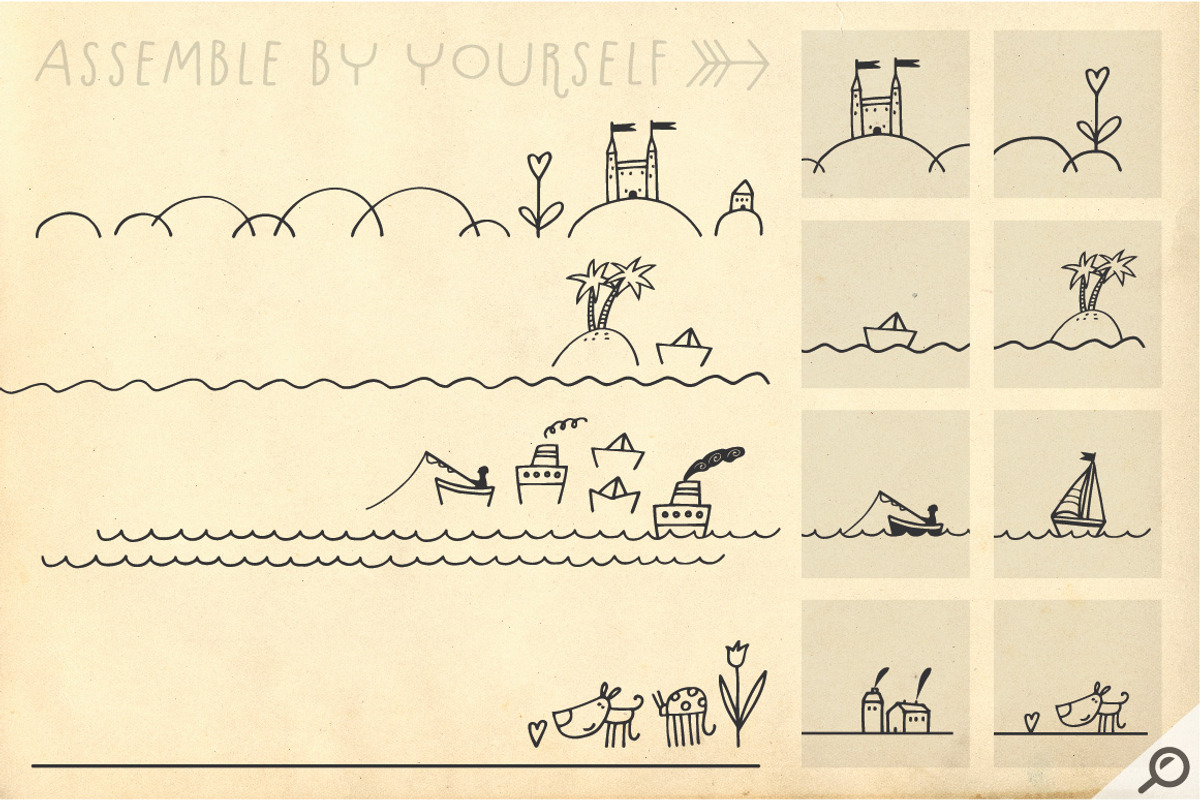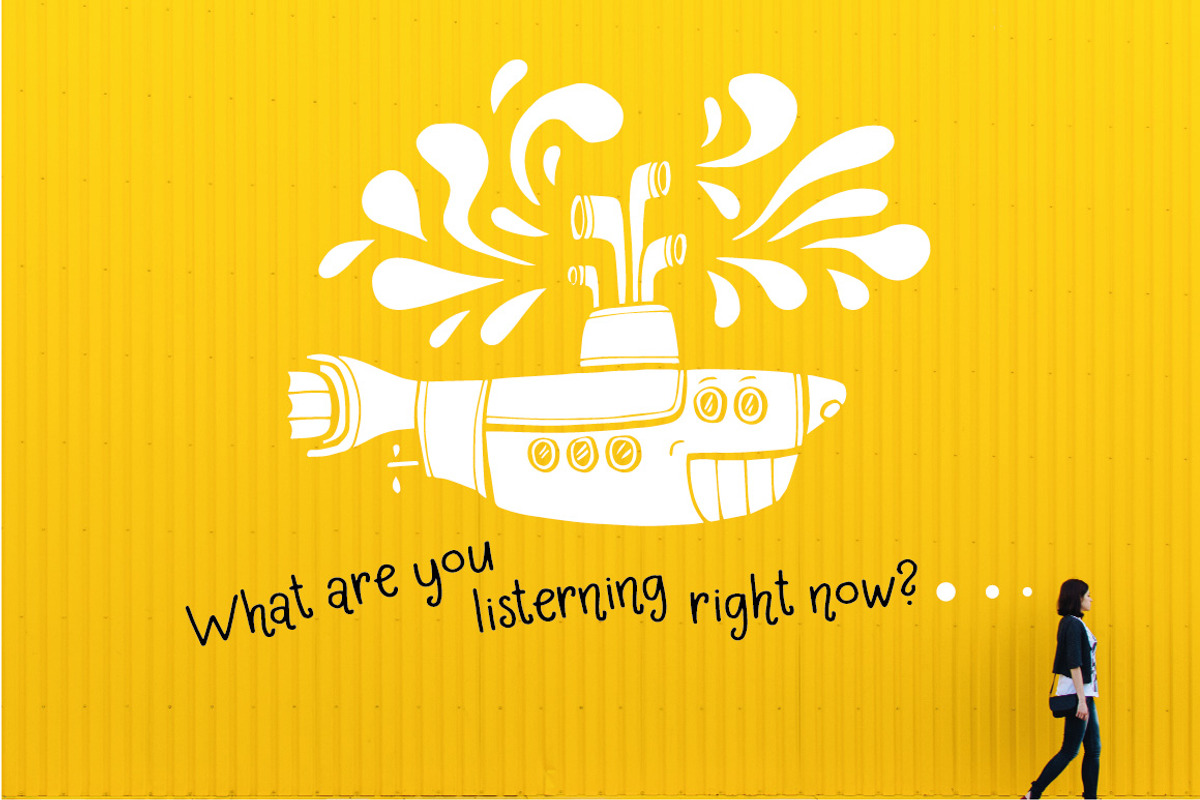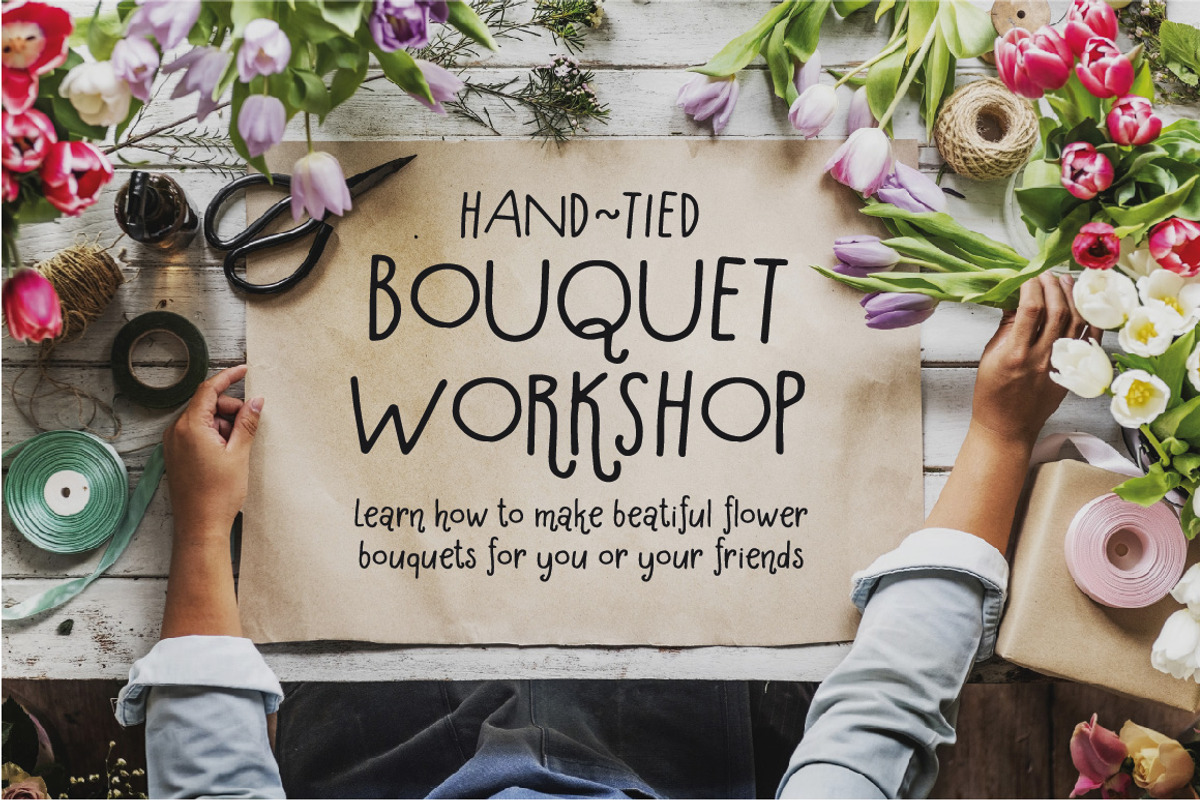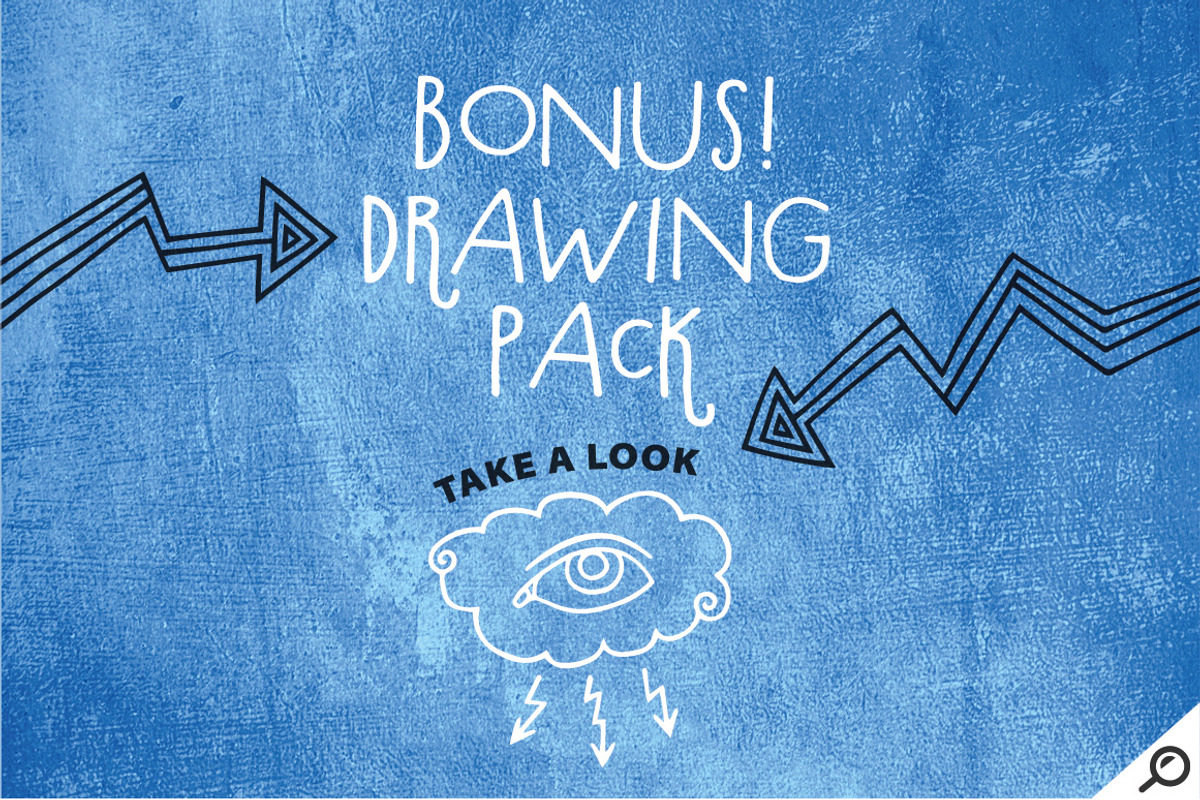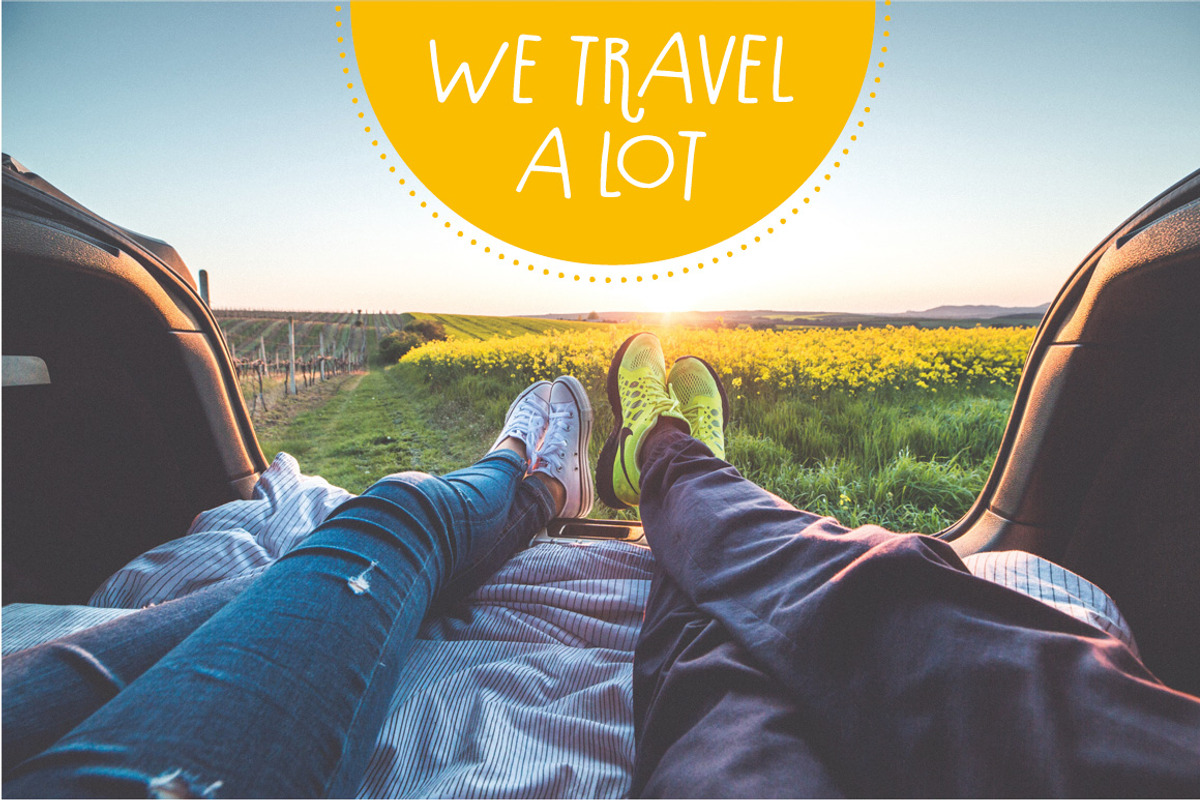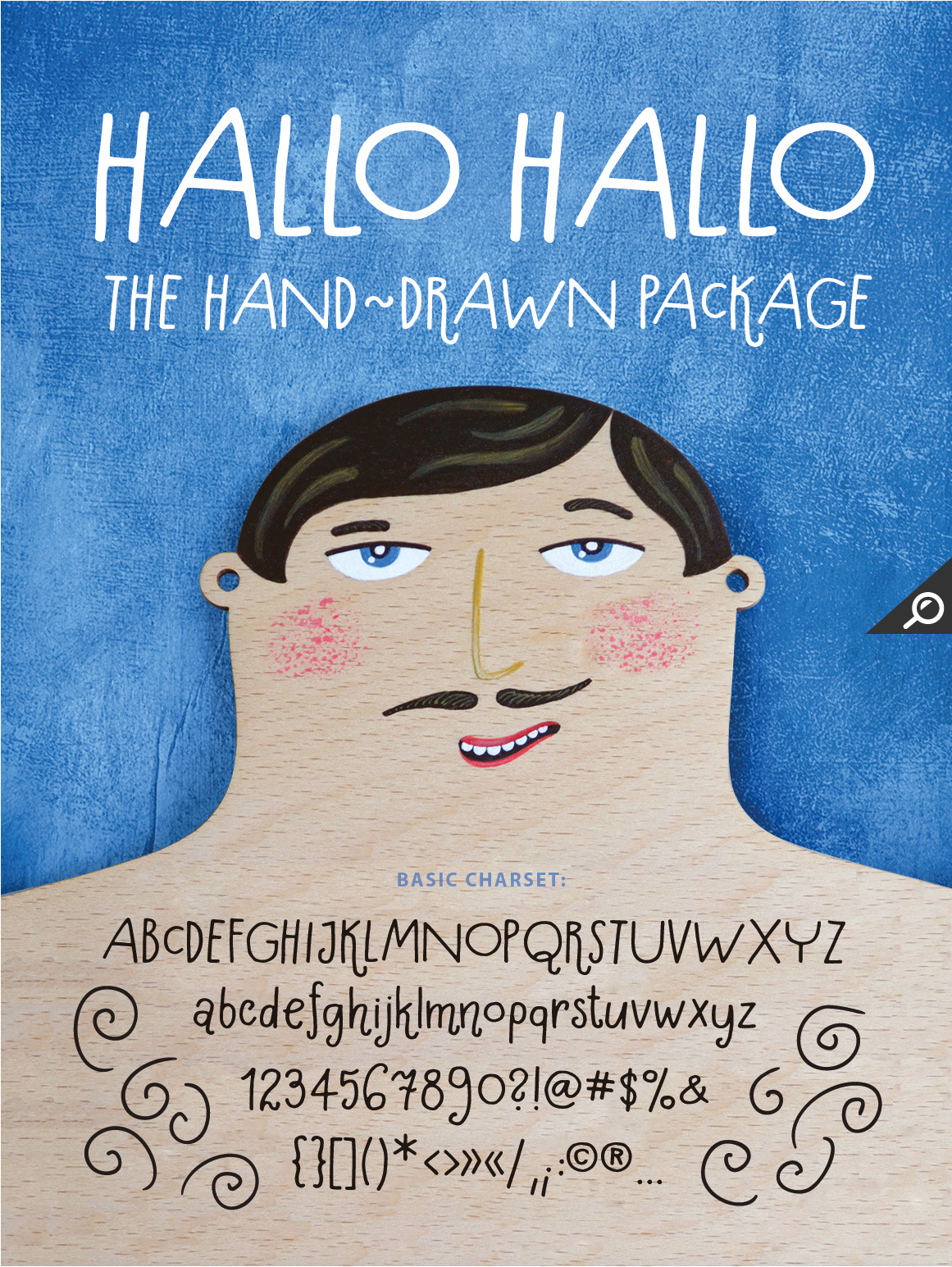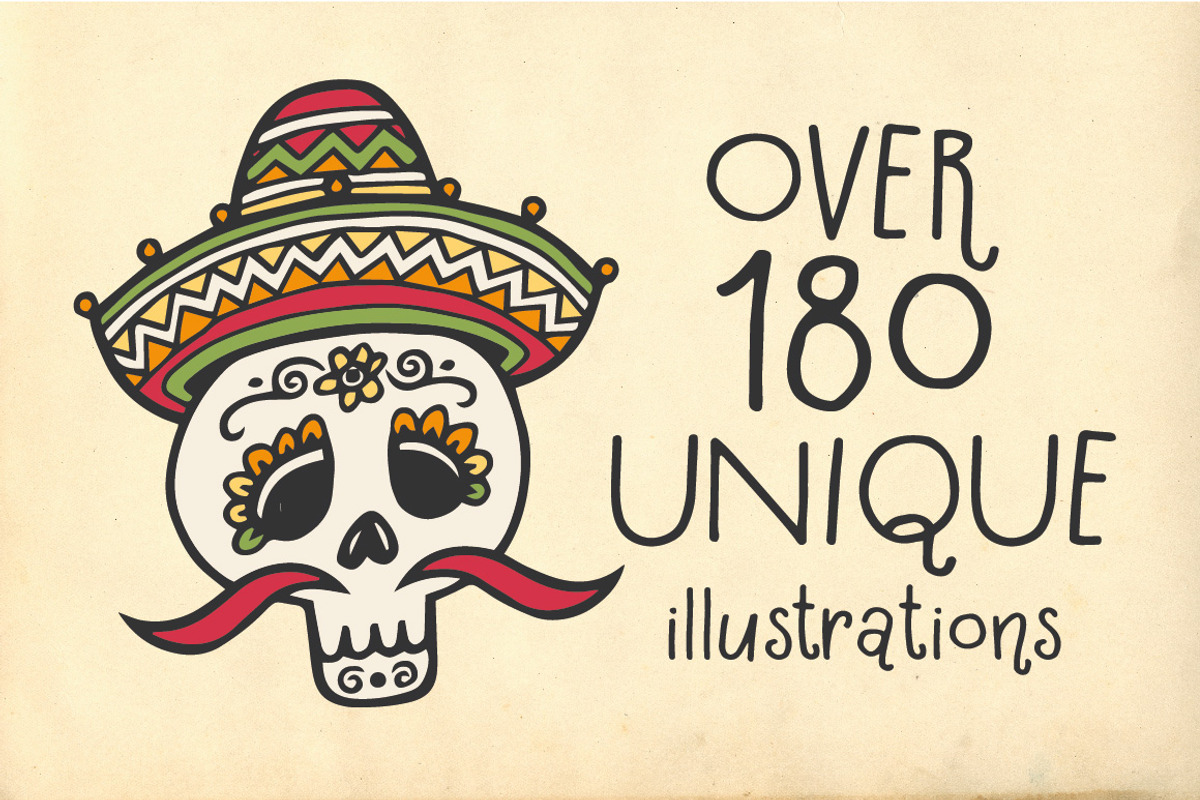
Hallo Hallo - HandDrawn Font Package
Hallo! Is a handwritten font designed to be your best friend. Drawn completely by hand with care and patience. Then processed to give it it's smoothness and perfection. It's ready to be used for both, your prints and digital creations.
As a bonus we added collection of handy illustrations and vector objects. It's pack of over 180 unique drawings. From universal banners and arrows to more specific ones such as decorated mexican skulls or paper boats.